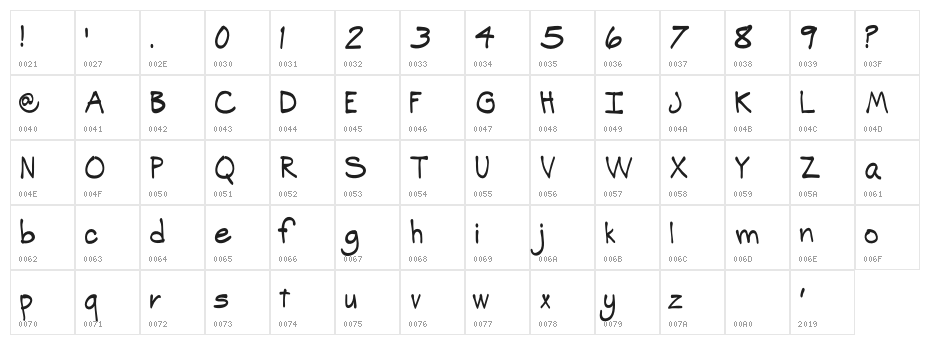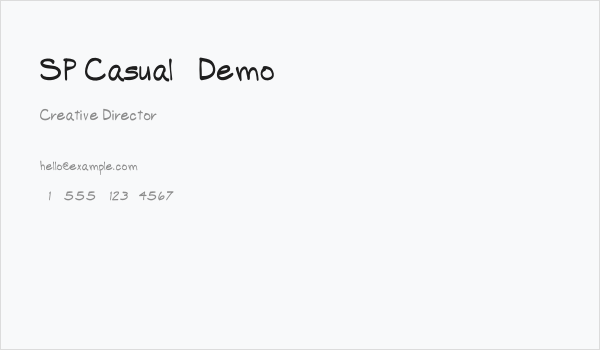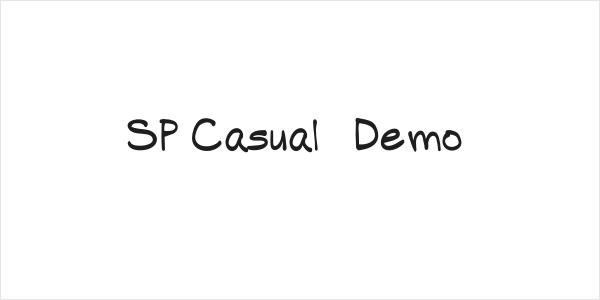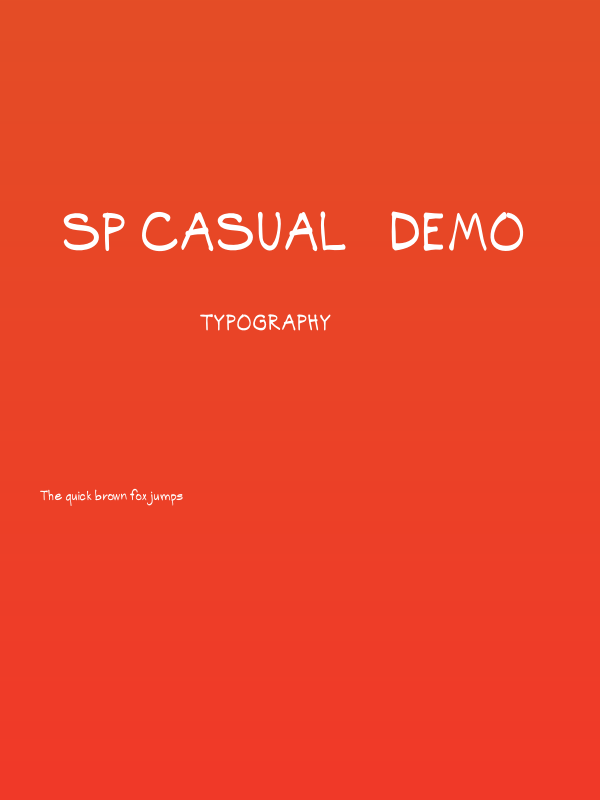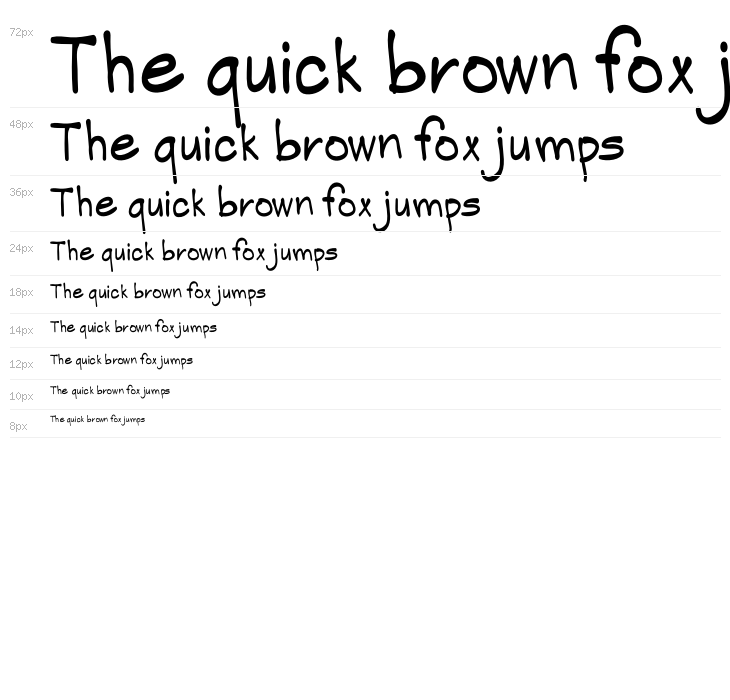
SP Casual-Demo Font
SP Casual-Demo Description
This playful and informal font exudes a casual, handwritten style that is both approachable and friendly. The characters are slightly irregular, giving them a natural and spontaneous appearance. The strokes are smooth and rounded, contributing to the font's relaxed and easy-going vibe. It maintains a consistent flow throughout, with a moderate weight that ensures readability while retaining its whimsical charm. The font's design is versatile, making it suitable for a variety of creative projects that require a personal touch.
| Use Case | Logos, Headlines, Informal Text |
| Proposed Projects | Ideal for greeting cards, children's books, casual branding, and social media graphics. |